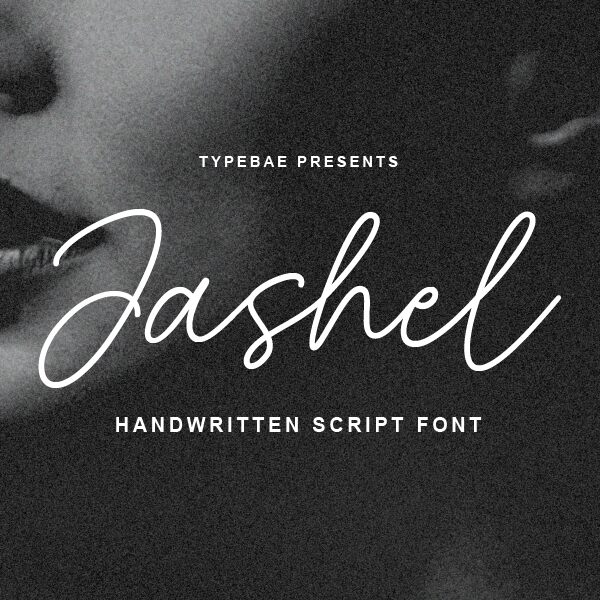
Jashel font, crafted by Typebae Foundry, stands out with its enchanting handwritten style that effortlessly conveys warmth and individuality. The light strokes create an airy feel, inviting the viewer to connect with its thoughtful design.
Each letter dances with a playful elegance, embodying spontaneity while maintaining legibility. Its unique charm renders it perfect for personal notes, branding endeavors, or any project requiring a touch of sincerity and creativity.
Whether used in wedding invitations or inspirational quotes on social media graphics, Jashel brings a fresh and genuine aesthetic that resonates deeply across various design contexts. Embrace this font to add character and authenticity to your work, making messages truly memorable.
Jashel